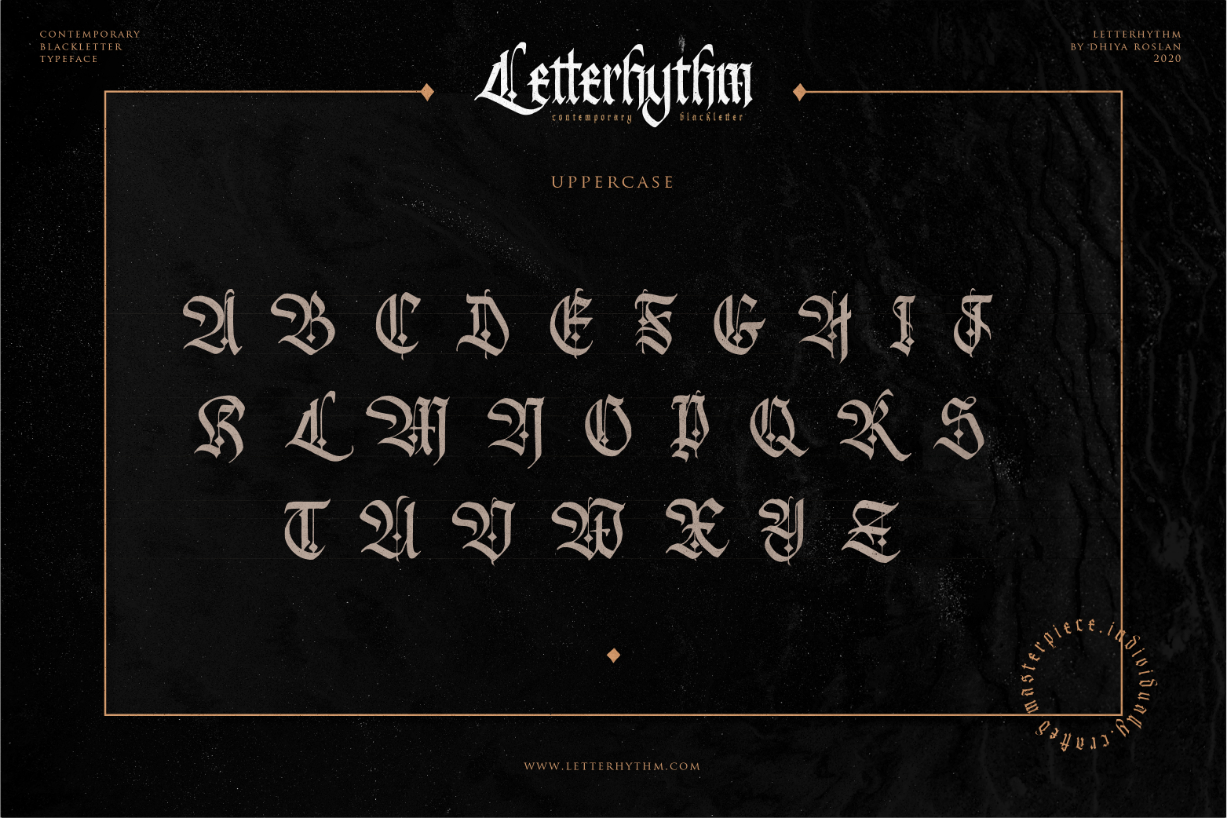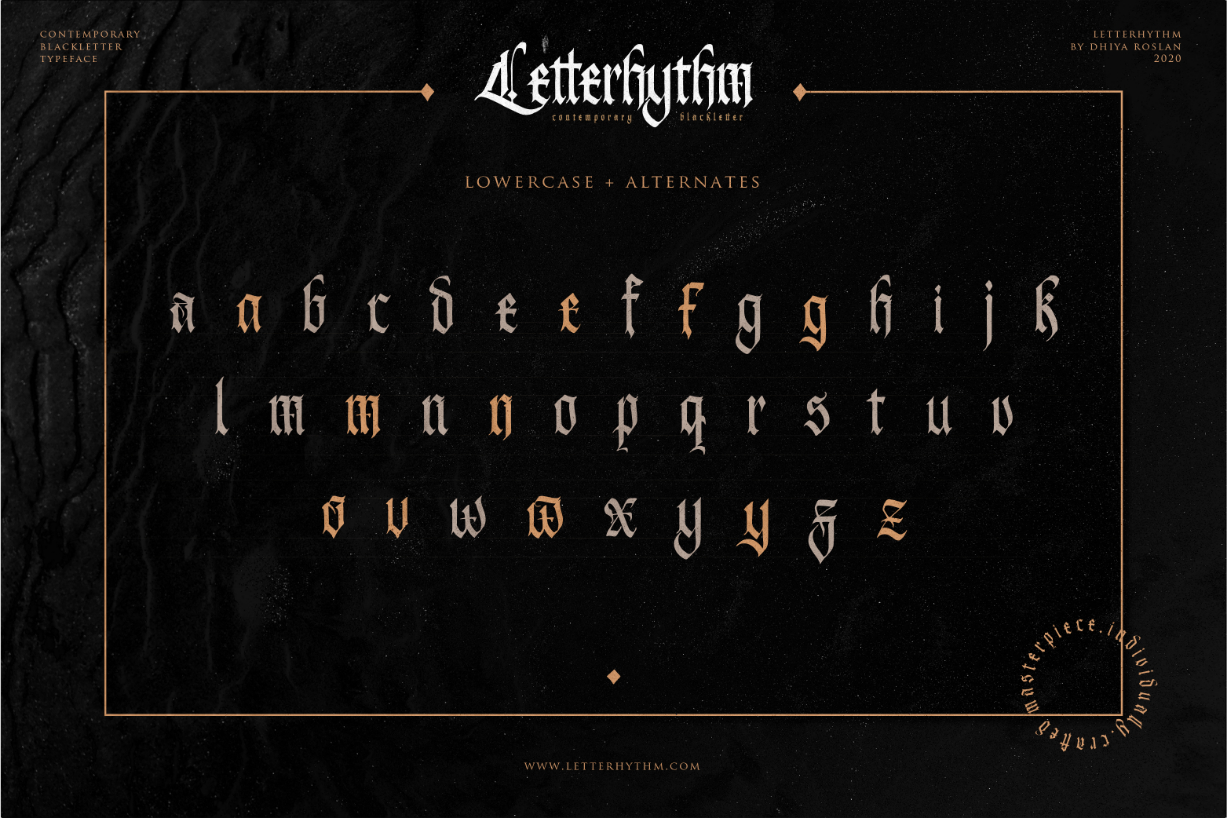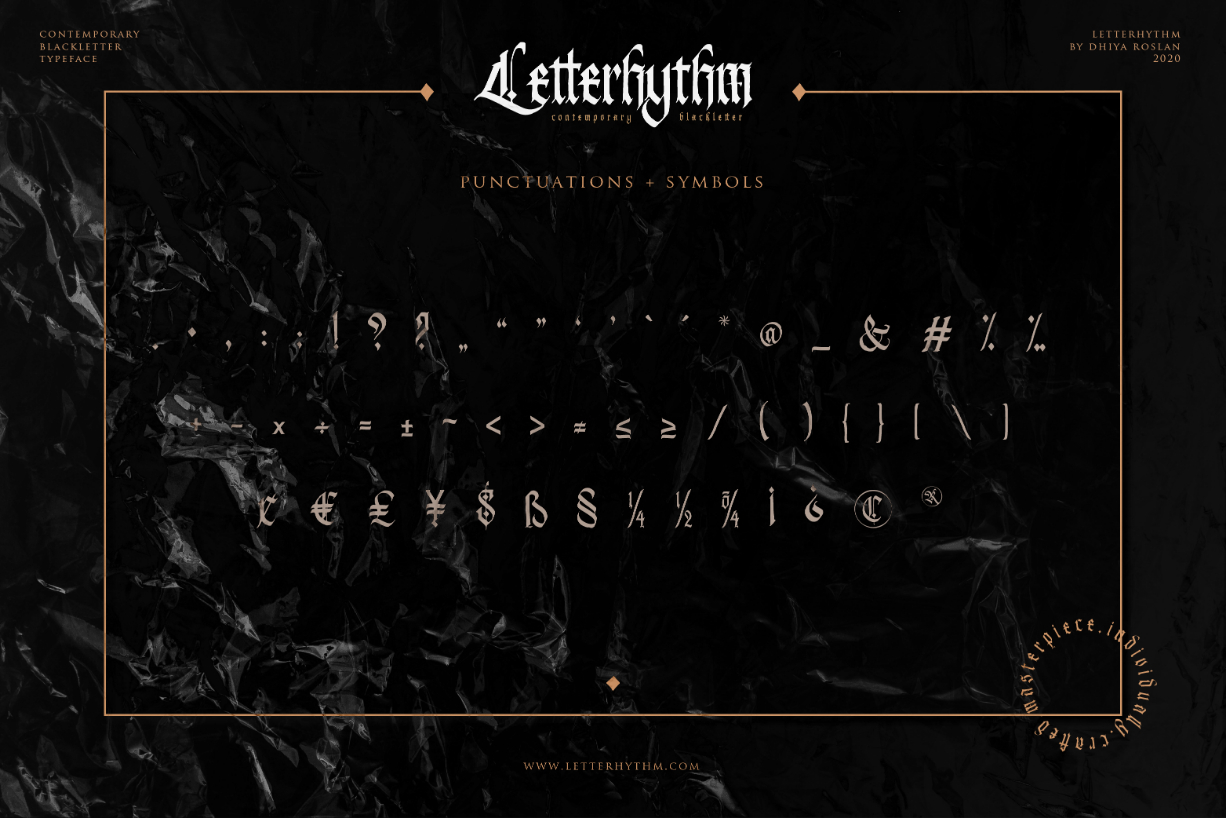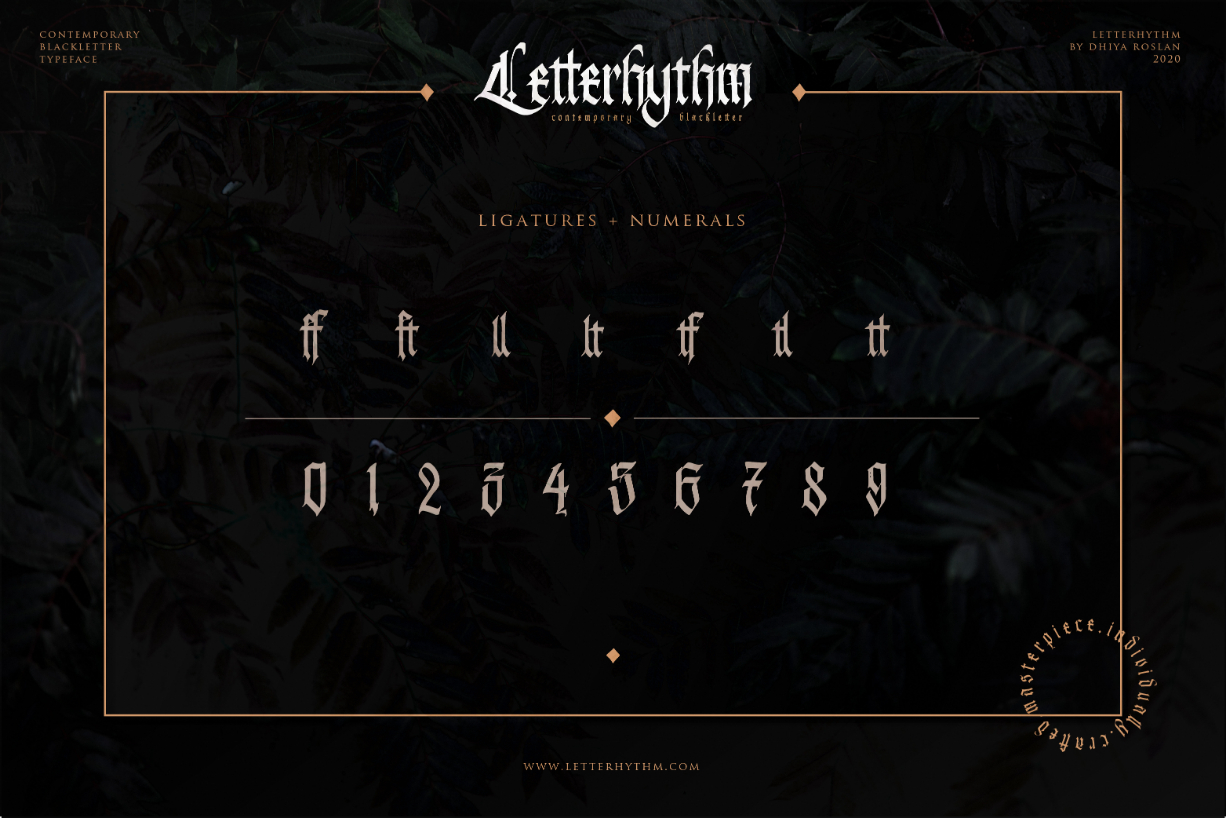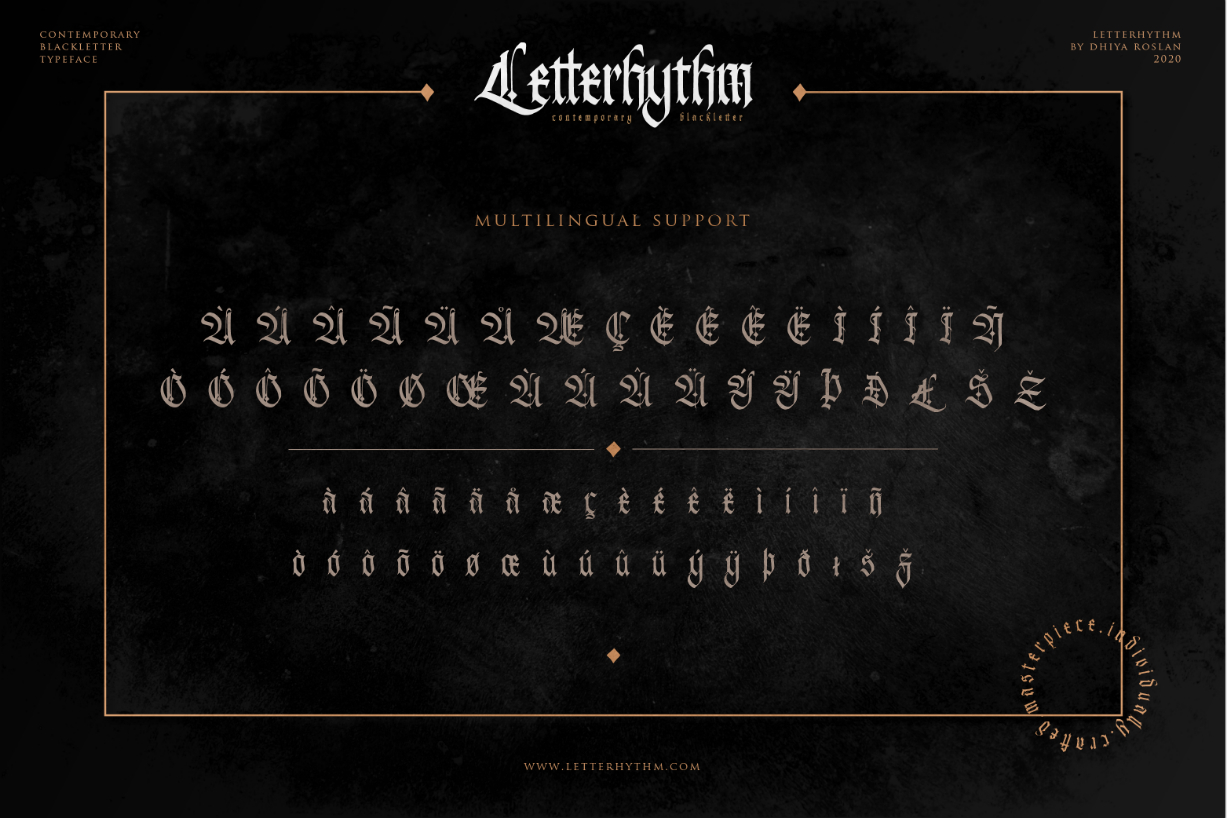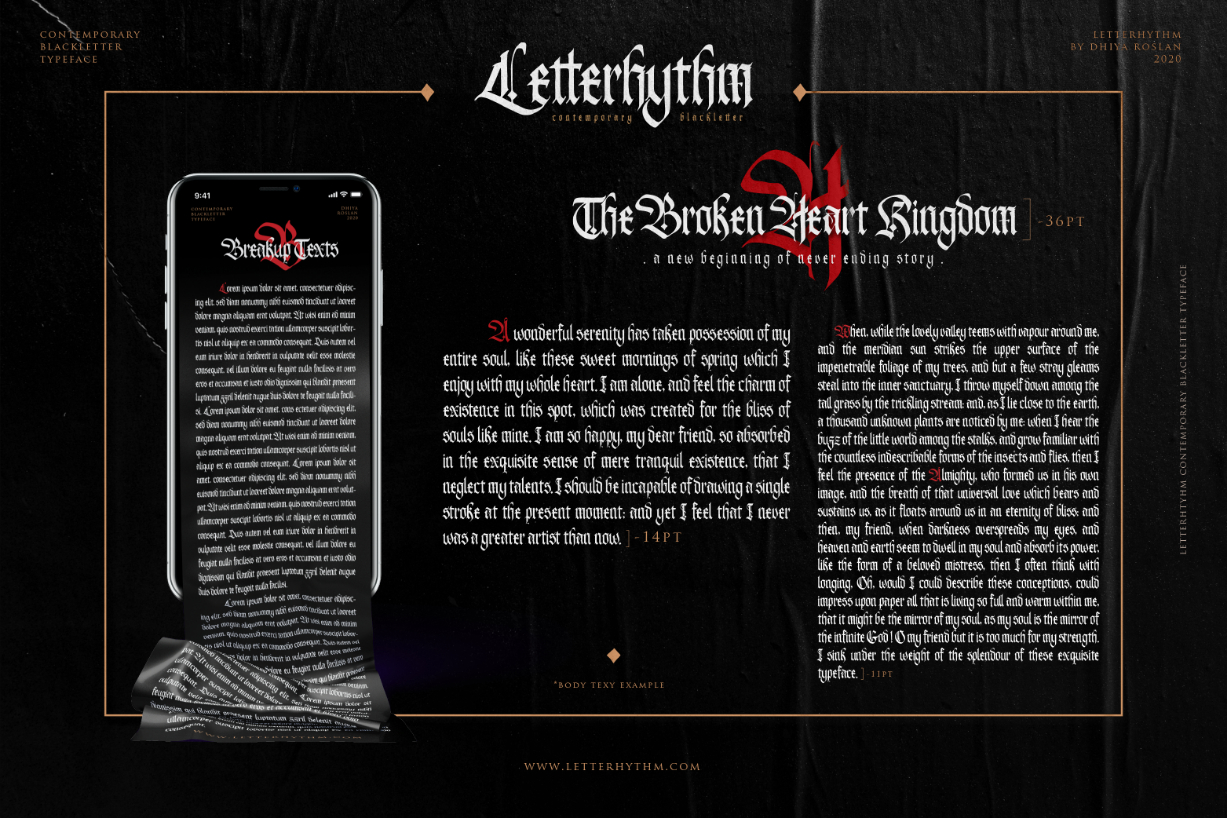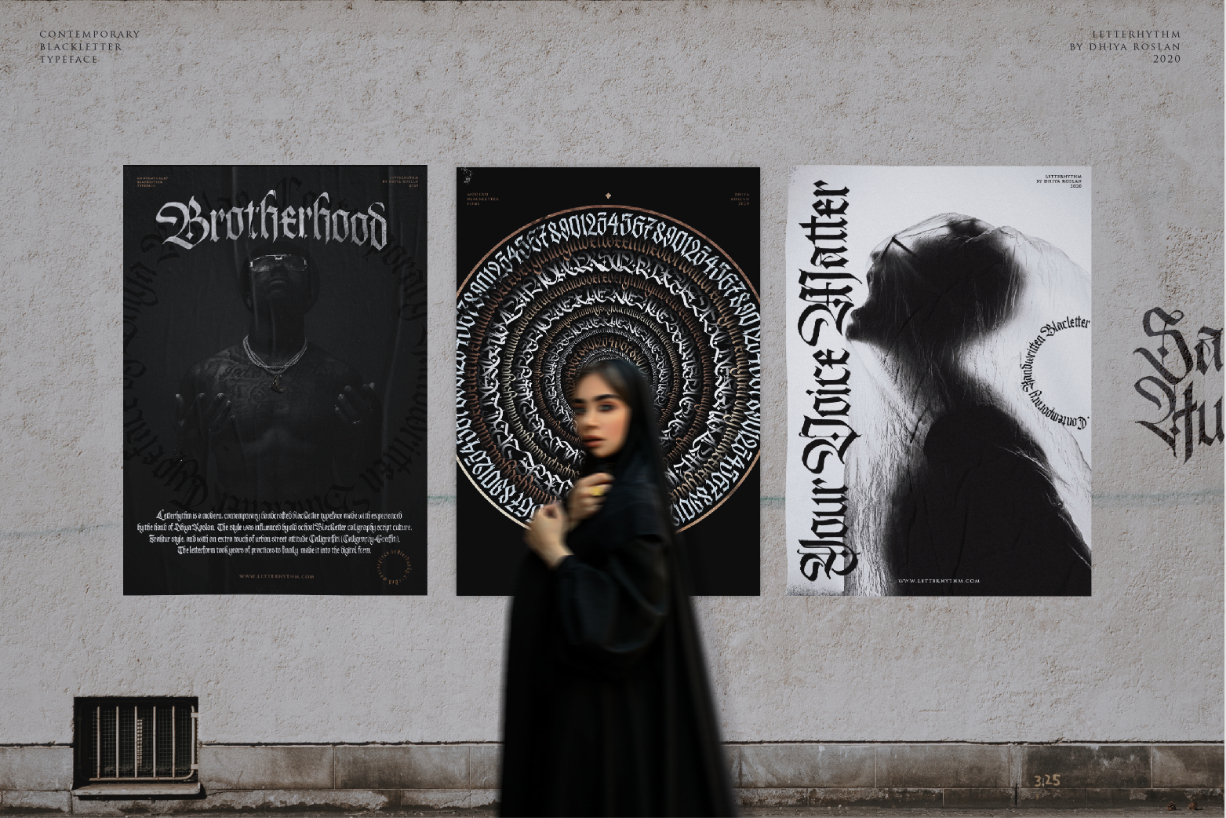
Letterhythm Font
About Letterhythm Font
Letterhythm is a distinct, highly detailed and assertive blackletter font. Add it confidently to your favorite creations and let yourself be amazed by the outcome generated.